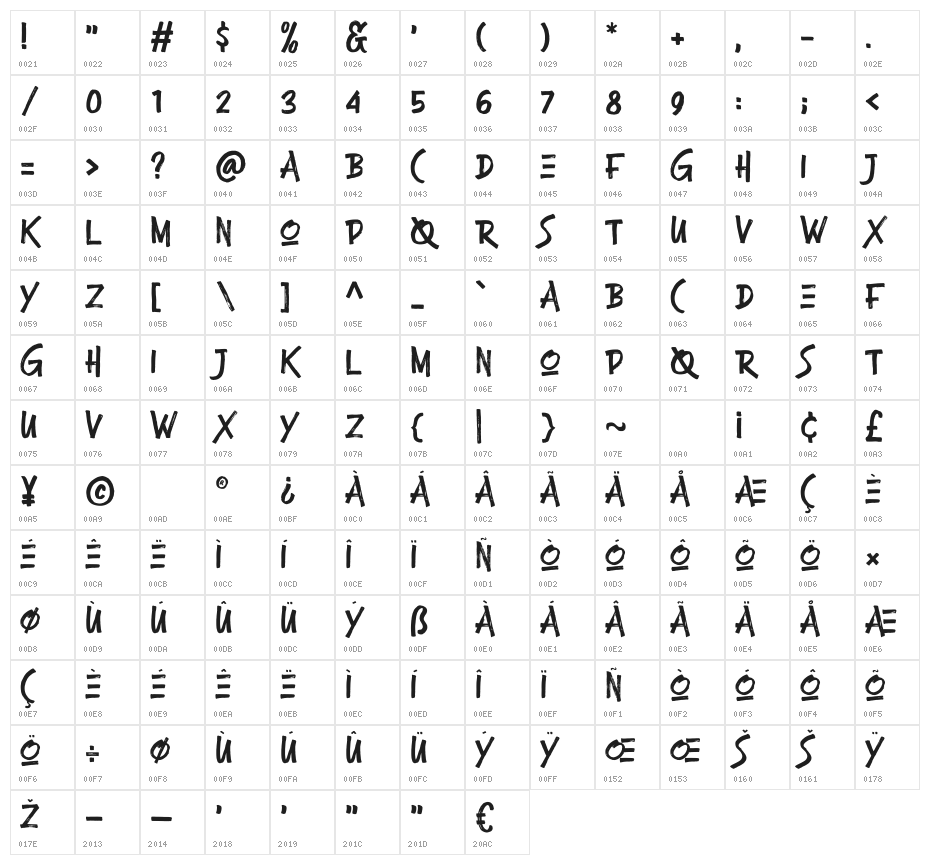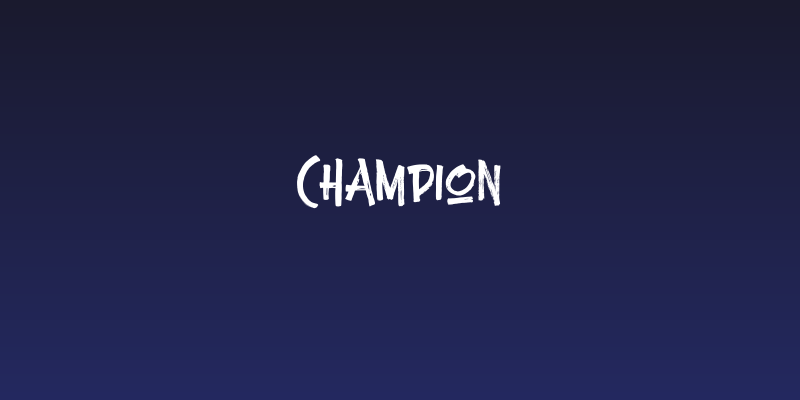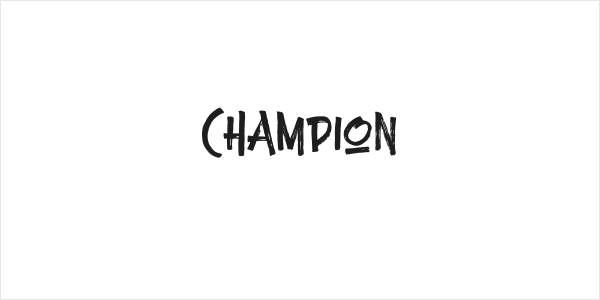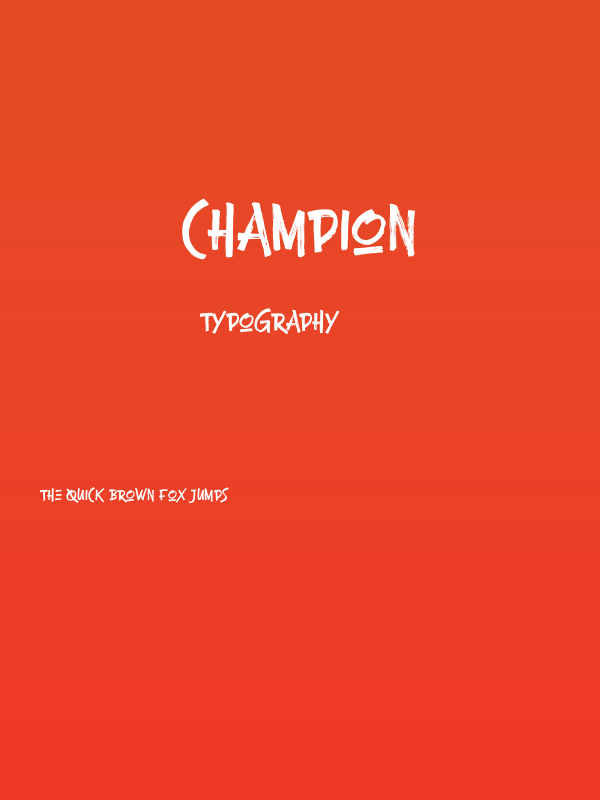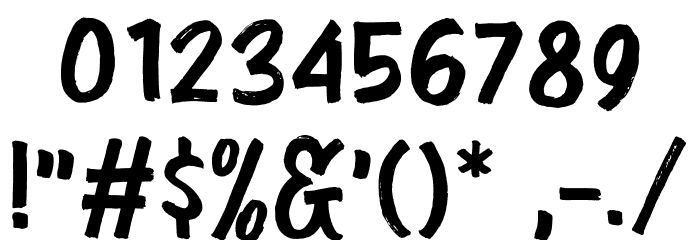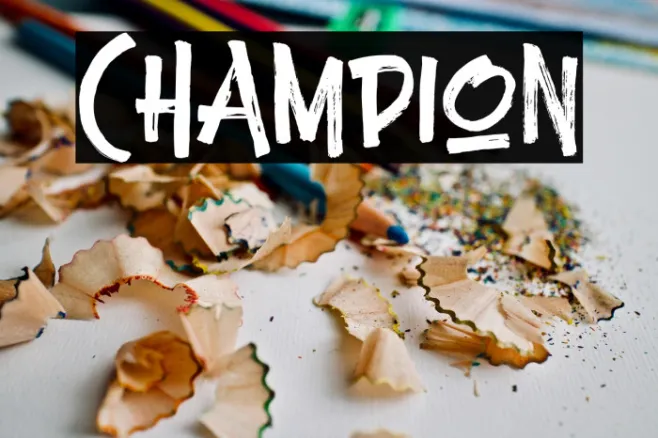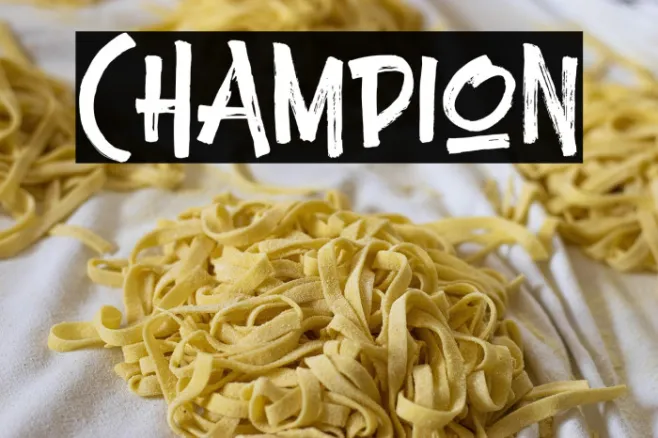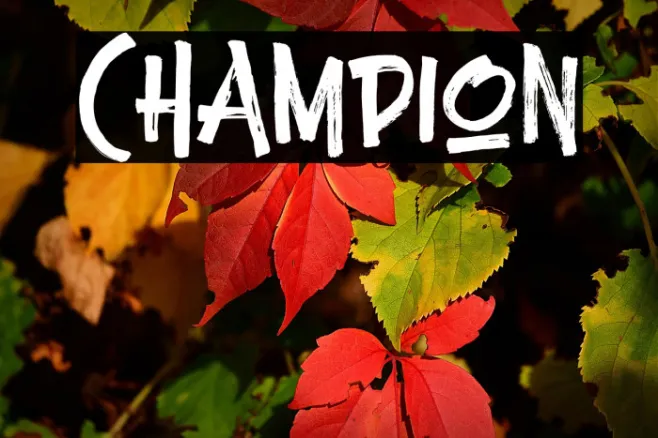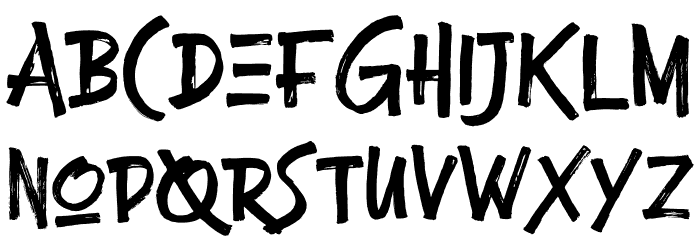
Champion Font
Champion Description
This font features a bold, hand-drawn style with a dynamic and energetic appearance. The letters are slightly irregular, giving it a casual and playful feel. The strokes are thick and uneven, adding to its handcrafted aesthetic. The uppercase and lowercase letters maintain a consistent style, with some characters having unique, artistic flourishes. The numbers and special characters follow the same design principles, ensuring a cohesive look across all elements. This font is ideal for projects that require a personal touch or a creative, informal vibe.
| Proposed Projects | Great for posters, branding, social media graphics, and creative projects needing a personal touch. |